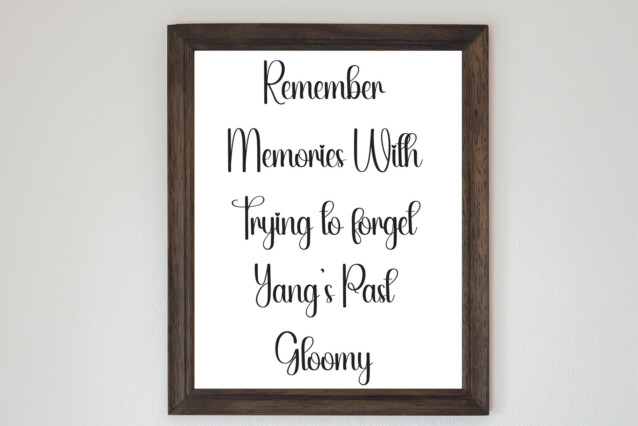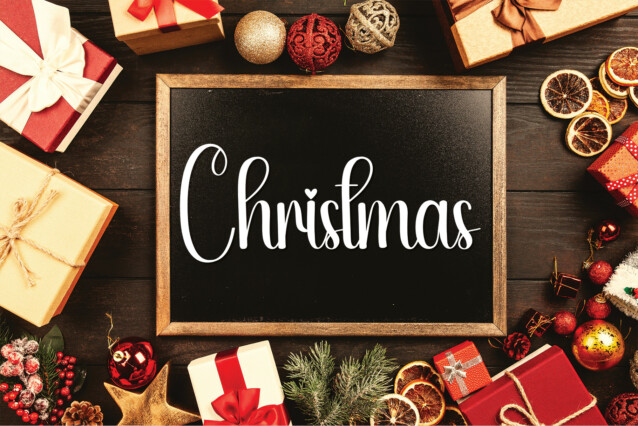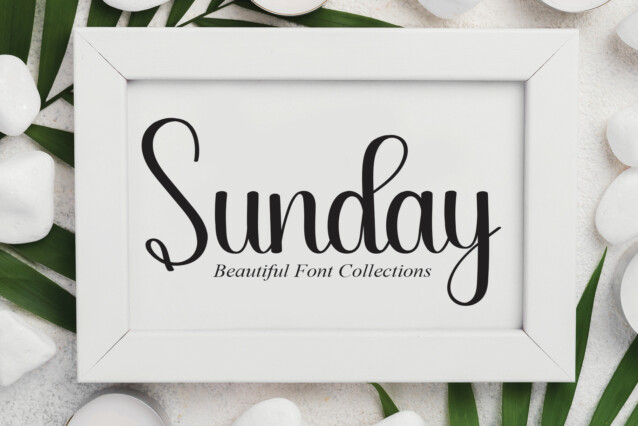
Simple Planner Script Typeface
Simple Planner Script Typeface is a romantic and sweet calligraphy typeface with characters that dance along the baseline. It will add a luxury spark to any design project that you wish to create!